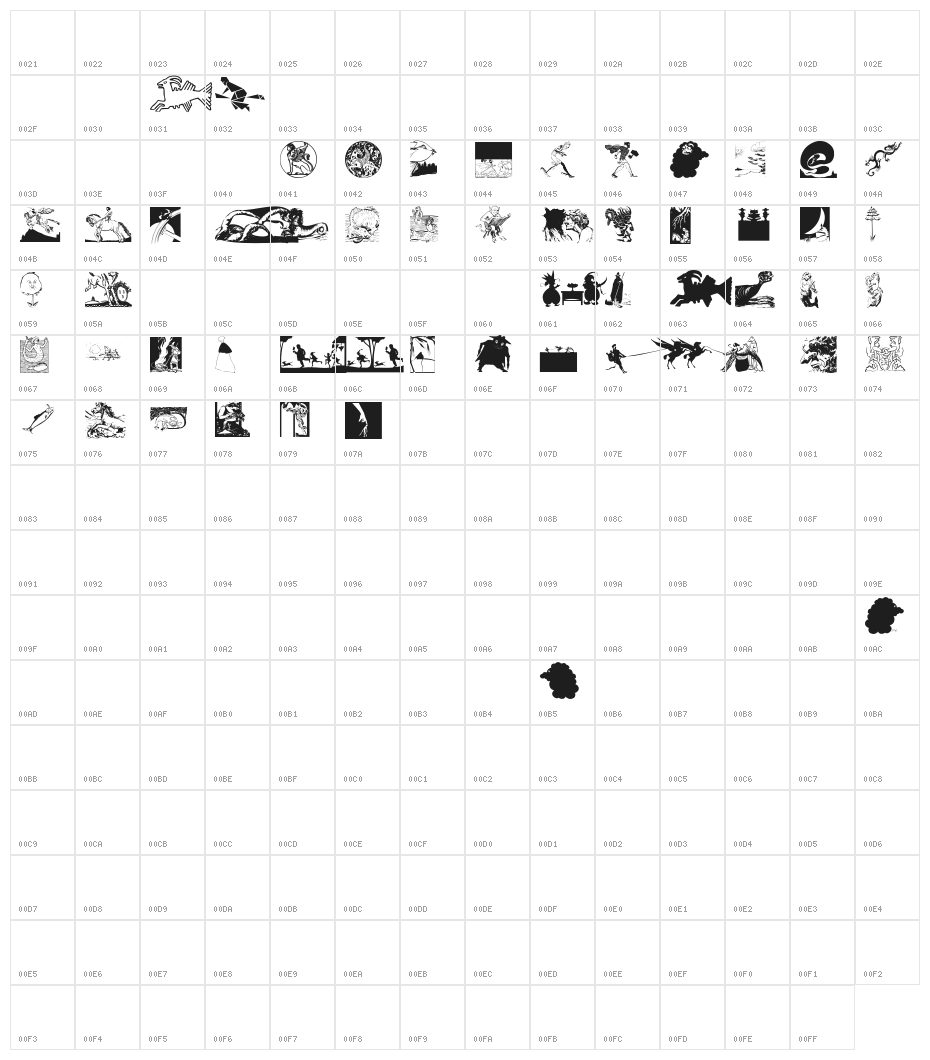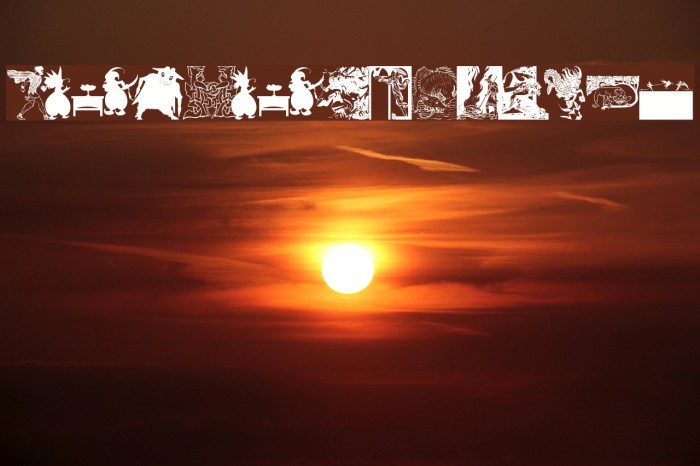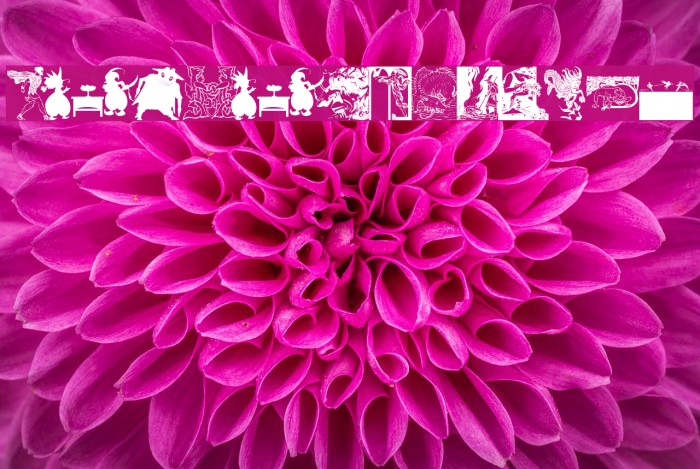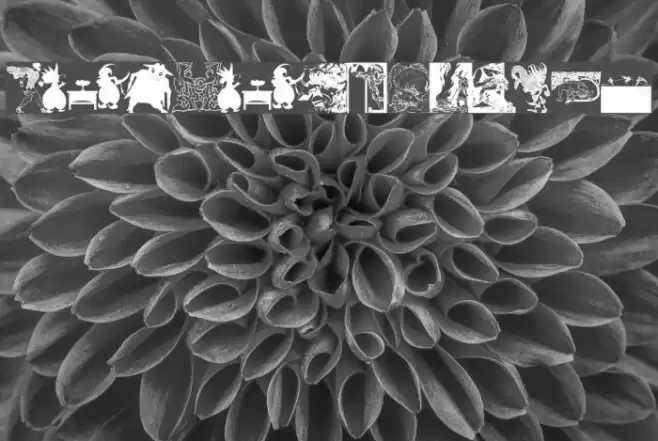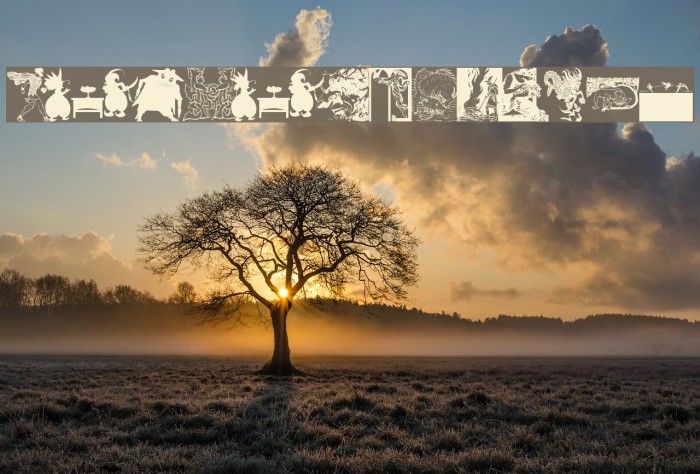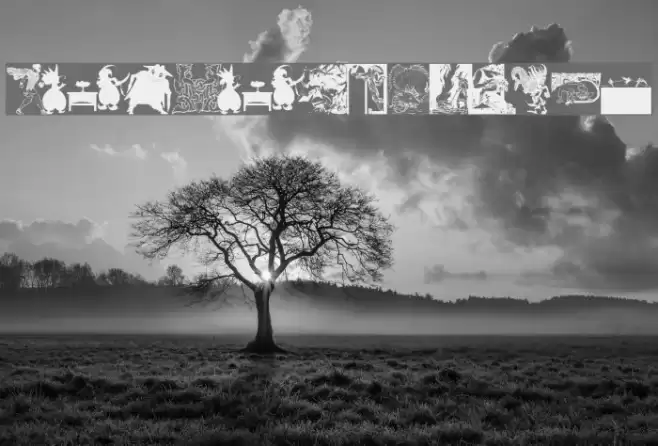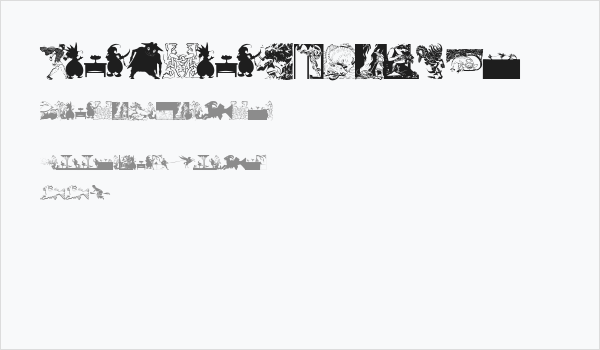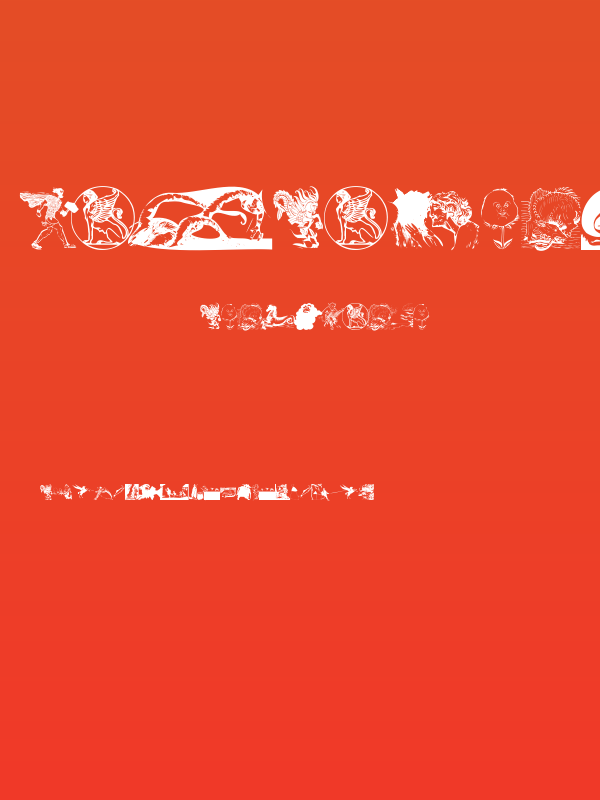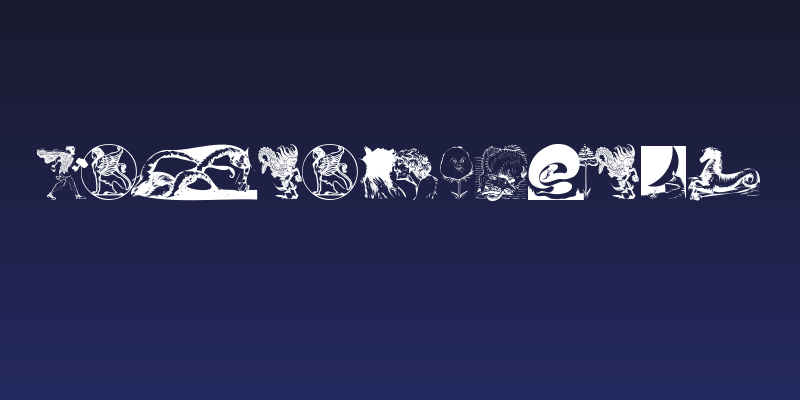
FantasyPixTwo Font
FantasyPixTwo Description
This decorative font is a collection of intricate and whimsical illustrations, each character representing a unique fantasy-themed scene or figure. The designs include mythical creatures, enchanted landscapes, and magical elements, all rendered in a detailed black and white style. The font is highly artistic, with each character offering a distinct visual story, making it more of an artistic expression than a traditional typeface. The illustrations are rich in detail, capturing the imagination with their fantastical themes and intricate line work.
| Use Case | Logos, Artistic projects, Decorative purposes |
| Proposed Projects | Ideal for fantasy book covers, themed event invitations, or creative projects requiring a magical and artistic touch. |